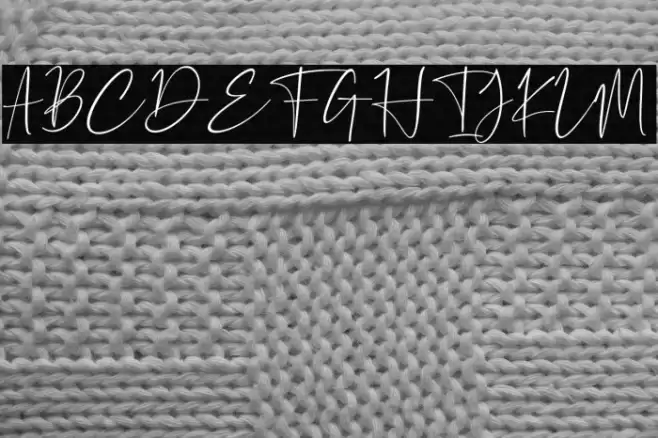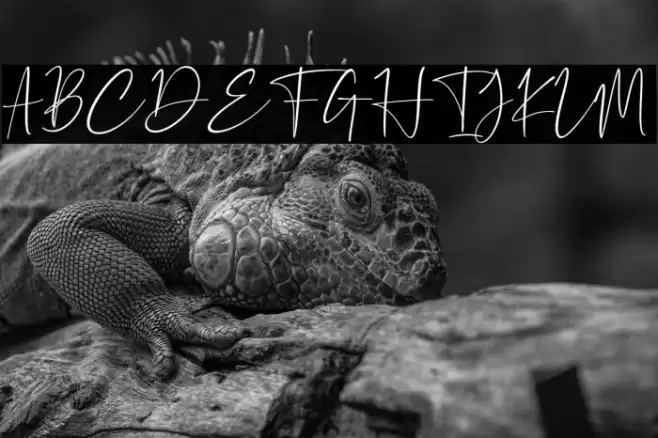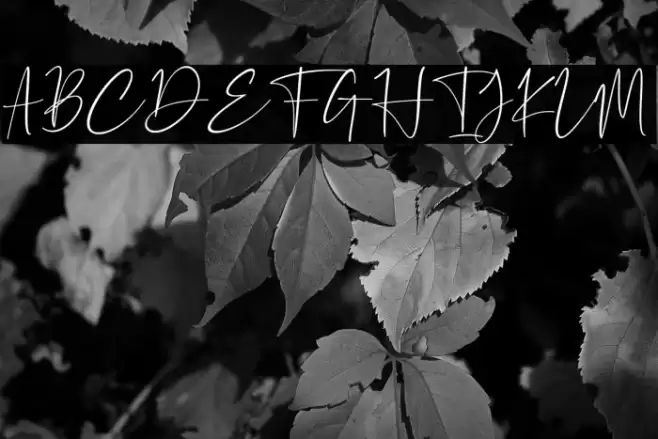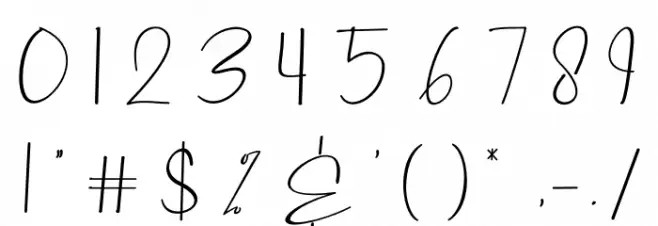
Petri Plate Font
Petri Plate Description
This font exhibits a lively and expressive handwritten style, characterized by its fluid and dynamic strokes. The uppercase letters are tall and slightly narrow, with a playful yet elegant flair. The lowercase letters maintain a consistent flow, enhancing the handwritten appearance. Numbers are clear and legible, matching the overall aesthetic with a touch of whimsy. Special characters are thoughtfully designed, integrating seamlessly with the rest of the font. The overall impression is one of creativity and spontaneity, making it ideal for projects that require a personal touch.
A lively and expressive handwritten font with fluid strokes from Uncategorized fonts.
- Proposed Projects: Ideal for invitations, greeting cards, personal branding, and creative projects that require a personal touch.
- Use Case: Logos, Invitations, Greeting Cards